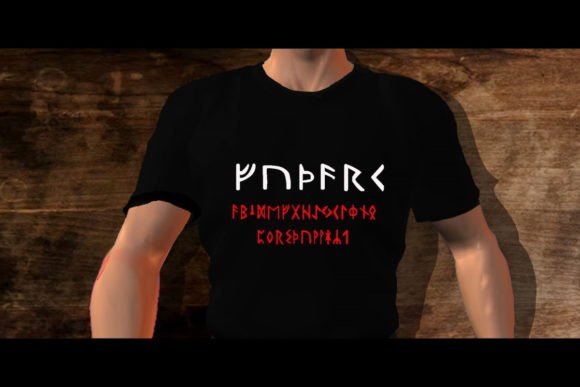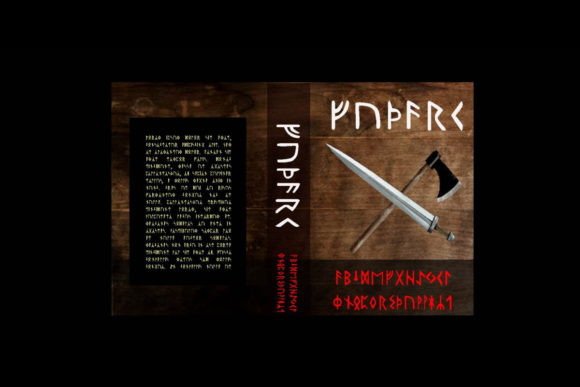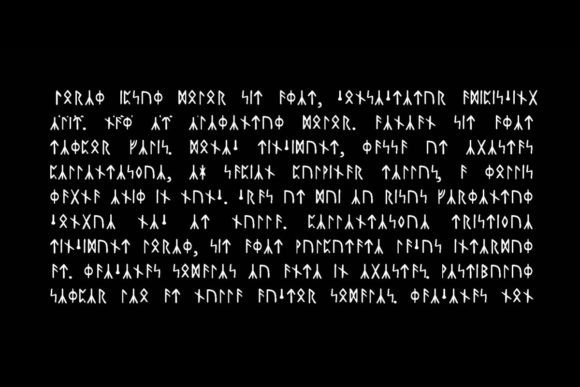
Introduction to Runegrim Font
Have you ever stumbled upon an old Viking manuscript and felt an instant connection to the mystical symbols etched on the page? For many of us, the allure of ancient scripts and mysterious languages sparks our creativity and inspires us to bring their beauty to life. One such font that captures the essence of these ancient scripts is the Runegrim Font.
Based on the intricate and majestic Ancient Viking Rune Script, the Runegrim Font is a valuable design resource for any creative project. Its high-quality design and transparent background make it a perfect fit for clothing, apparel, and handicrafts. What sets this font apart is its user-friendly interface, making it accessible to those who may not be familiar with the Unicode format of ancient fonts.
Key Features of Runegrim Font
- Unique, bold, and intricate design with transparent background for seamless integration
- Perfect for use in graphic design, digital art, and other creative projects
- Supports various languages and is fully scalable
Honest Review: Runegrim Font
As a designer, I’m always on the lookout for high-quality design resources to elevate my creative projects. Recently, I stumbled upon the Runegrim Font, and I must say it’s a fantastic find. ✨
Here are some of the things that work well:
- High-quality design that’s perfect for modern projects
- Transparent background for easy layering
That being said, there are a few limitations to consider: ⚠️
- Only a few weights are available, which may limit its versatility
- The font may not be suitable for large blocks of text
Overall, I’m impressed with the Runegrim Font. It’s a solid addition to any designer’s toolkit, and I’m excited to see how it elevates my future creative projects.
The Runegrim Font is ideal for:
– Creating eye-catching headings and titles
– Adding a touch of elegance to your designs
– Enhancing the overall aesthetic of your creative project
Tips for Getting the Most Out of Runegrim Font
– Experiment with different font sizes and styles to achieve the desired effect
– Use the font in combination with a transparent background for a modern look
– Consider pairing the Runegrim Font with other high-quality design resources for a cohesive design